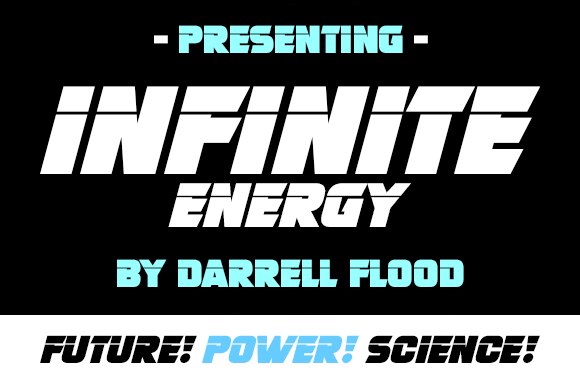
Introduction to Infinite Energy Font
Infinte Energy is a slick, expressive display font in a modern, sliced-through style.
Perfect for tech presentations, sci-fi themes, and general high-impact use .
Key Features of Infinite Energy Font